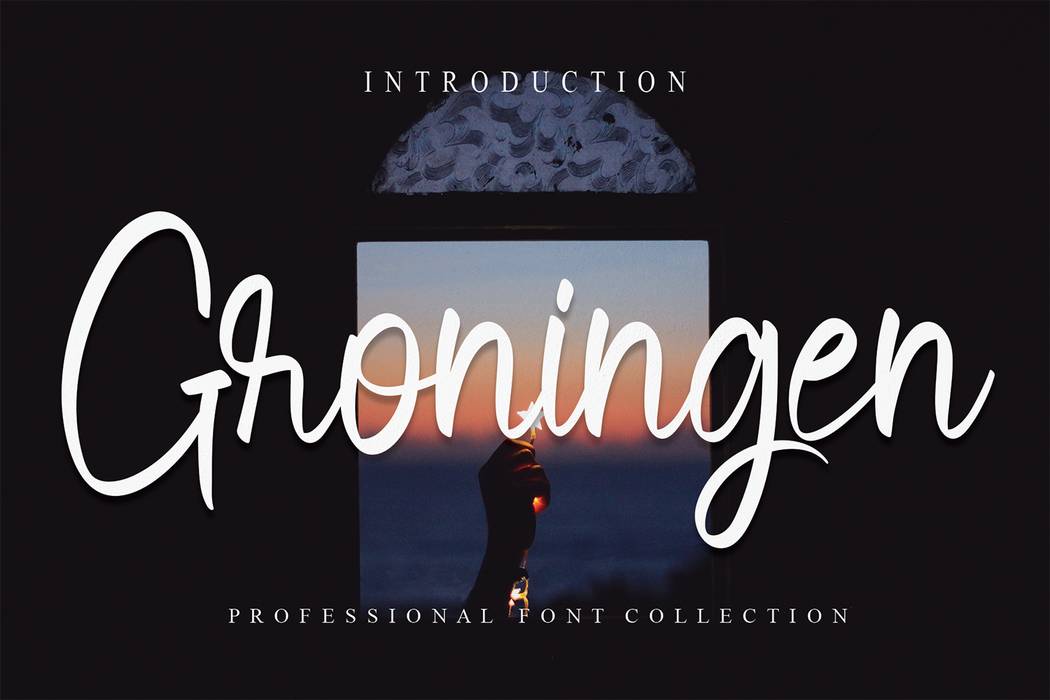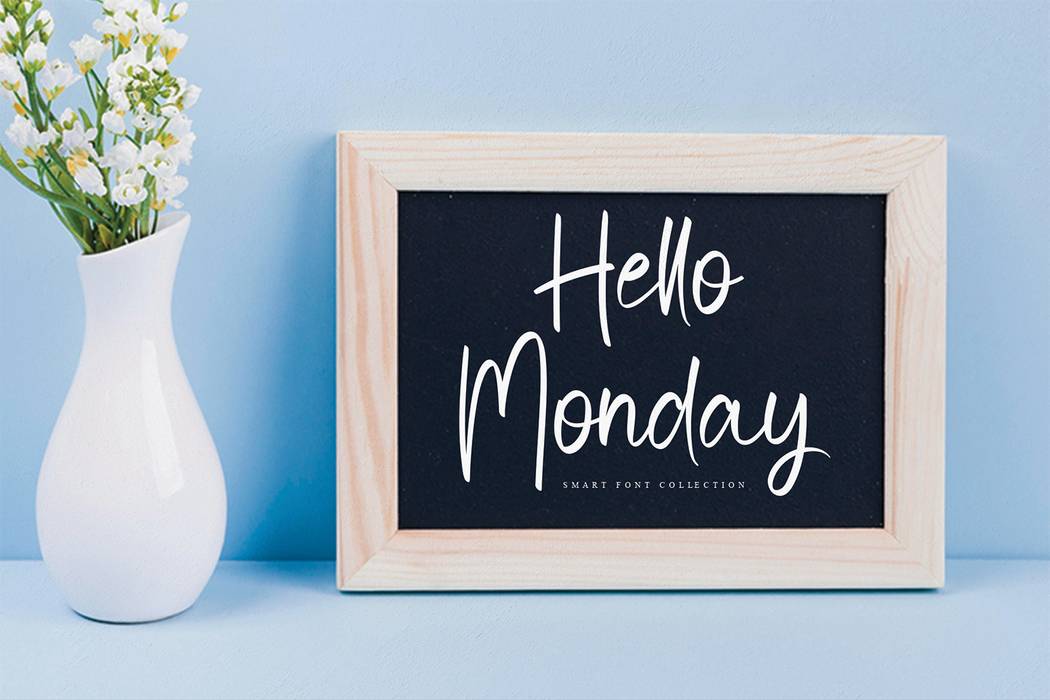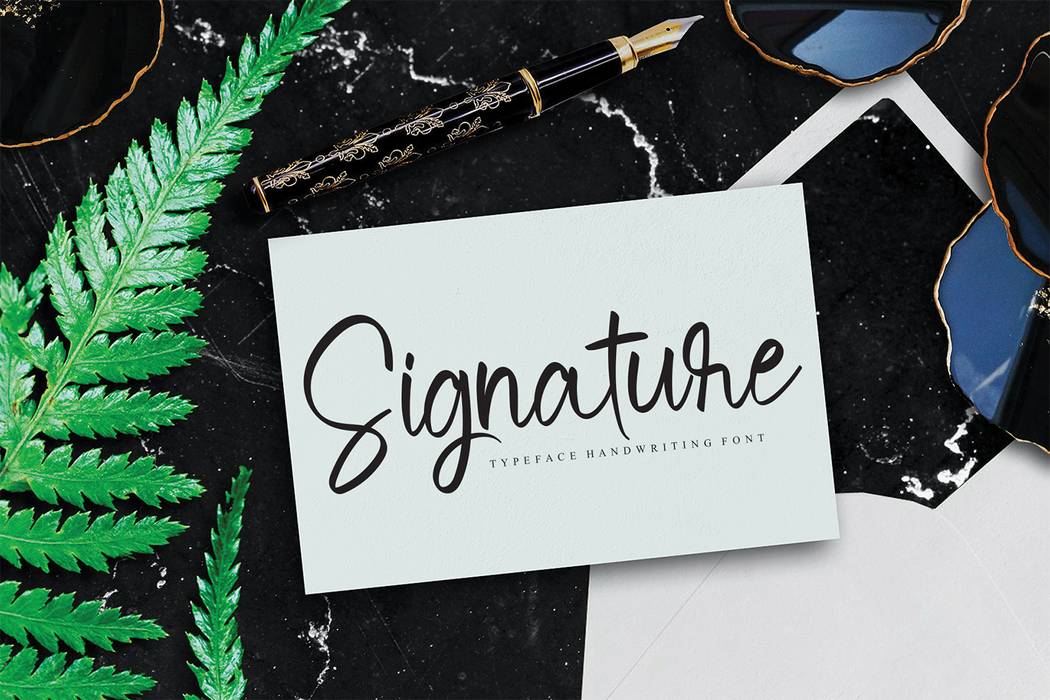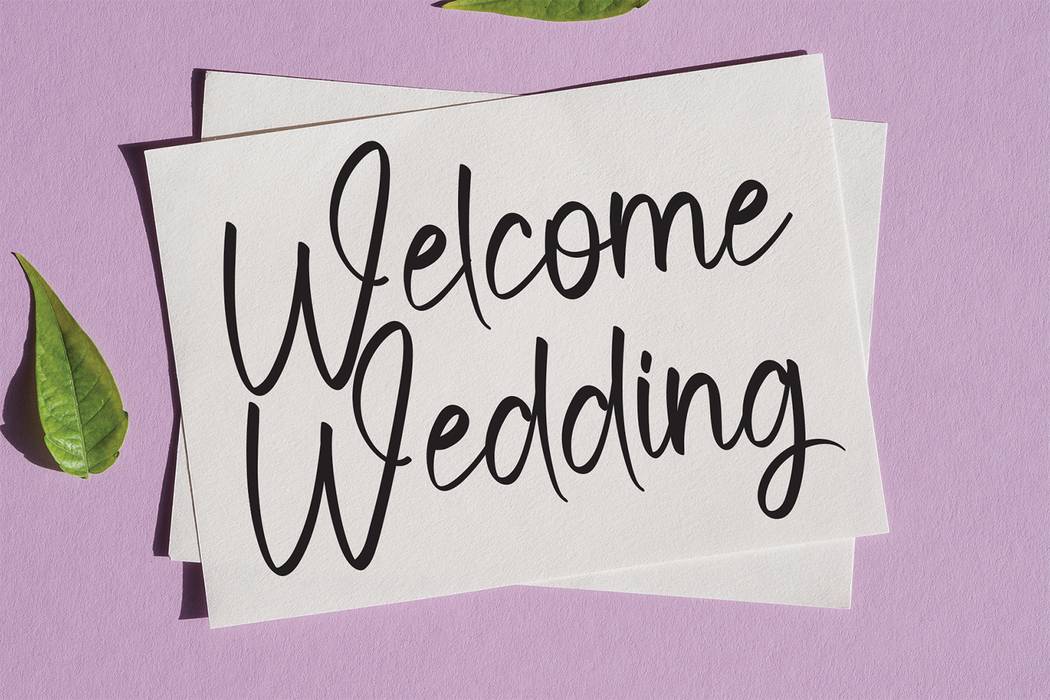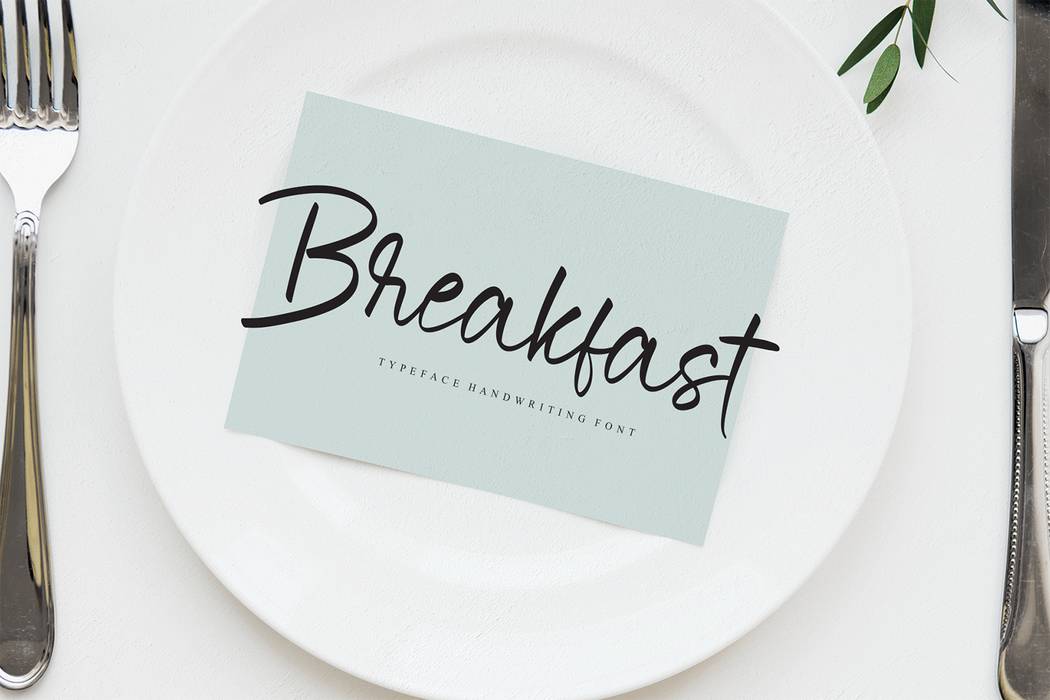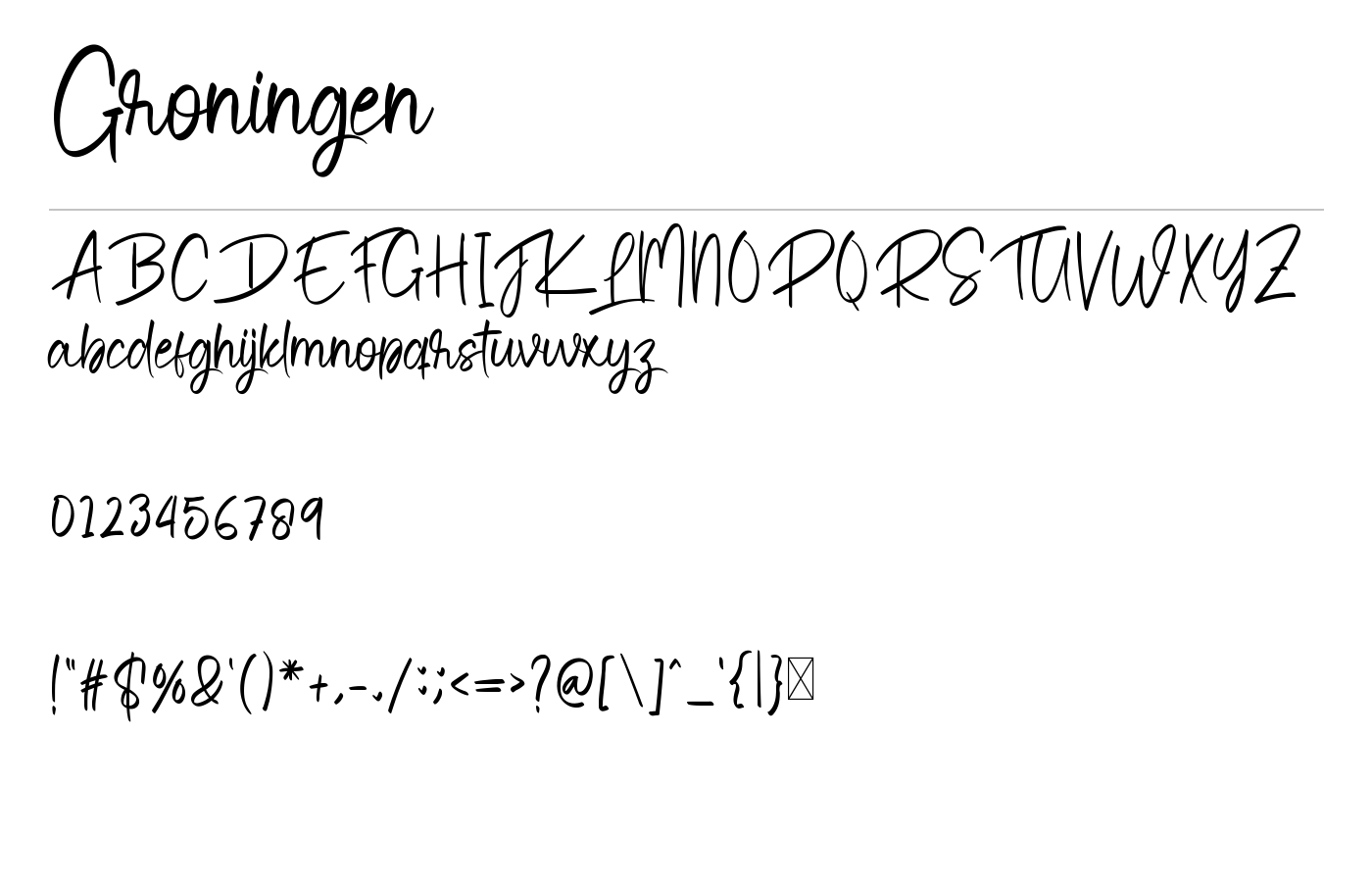
Groningen is a lively handwritten script font with a casual and friendly feel, featuring smooth, flowing strokes and a moderate x-height that enhances readability. Its slender, slightly irregular letterforms give it a personal, approachable style perfect for creative projects, invitations, and branding that seeks to convey warmth and informality. This font works well in designs requiring a human touch, adding personality without sacrificing clarity.
Groningen Font
About Groningen Font